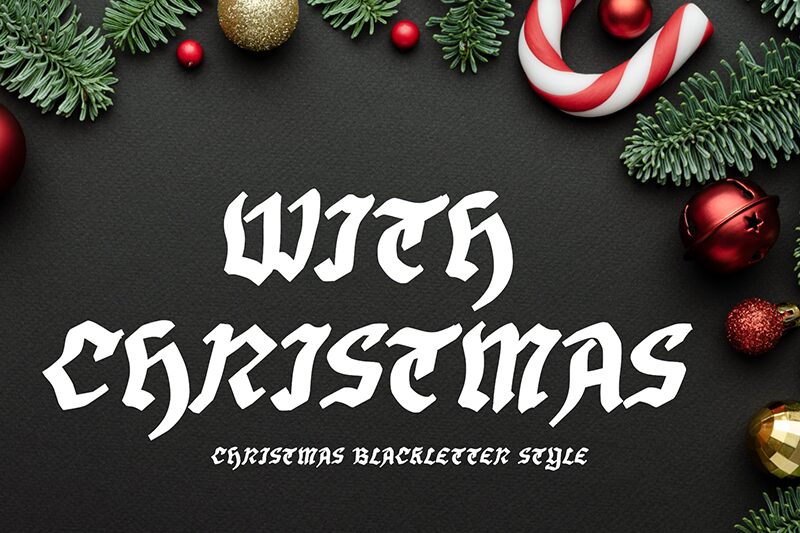
We’re all familiar with the basic gothic fonts with their bold characters and medieval aura. Today we’re adding this freebie to your gothic font collection!
With Christmas, as the name suggests, is an bold gothic script typeface that’s perfect for all your Christmas needs, from cards to T-shirts designs, Christmas lights ads, posters, and so on. The typeface is also great for branding and packaging designs with its slightly pointy corners and sharp edges. The letters are condensed which would help in maximizing the spaces and allow you to add more elements to your design. And if you’re looking to add a touch of elegance, try out the swash caps features for a vintage touch.